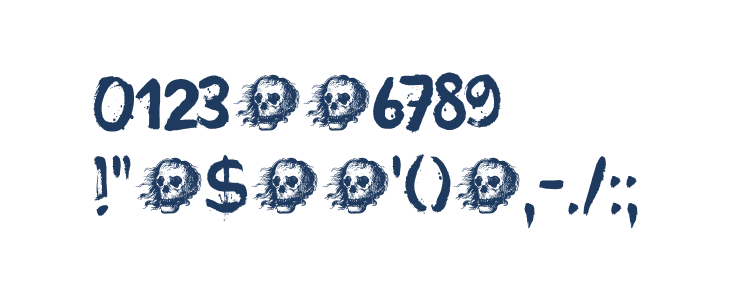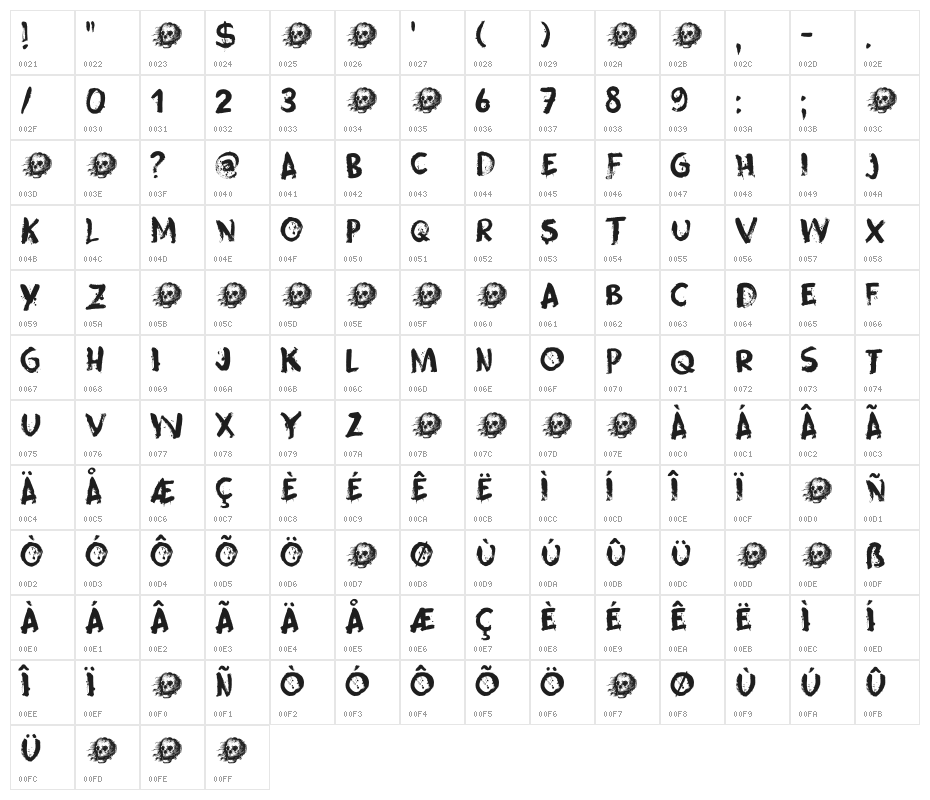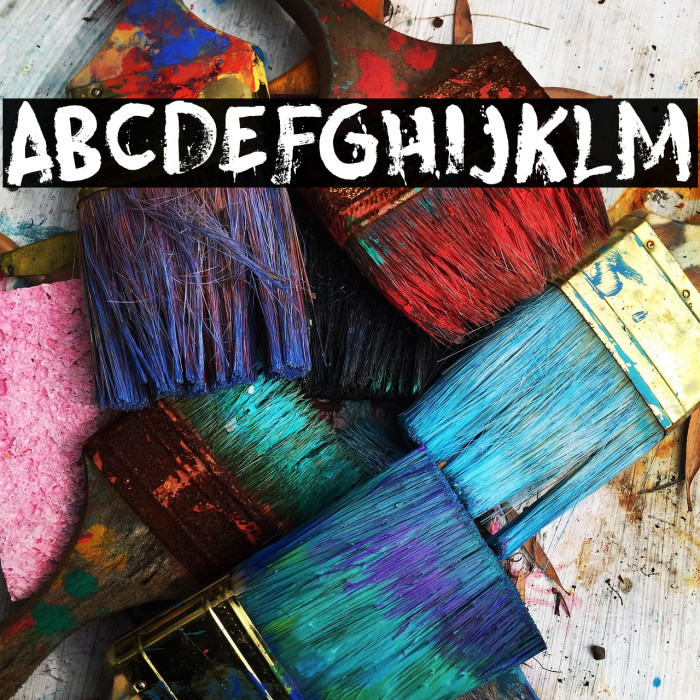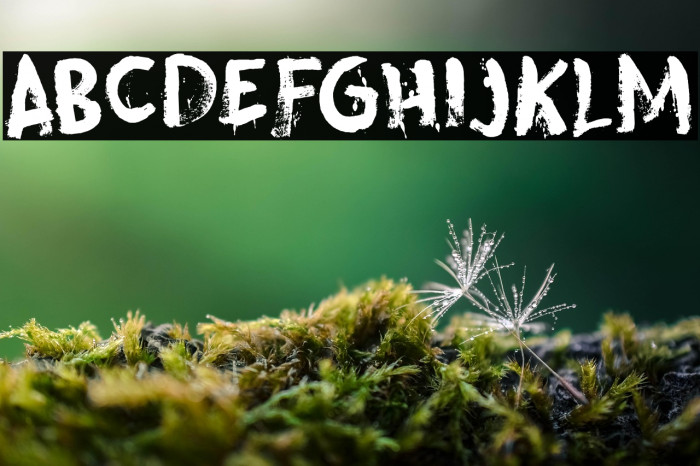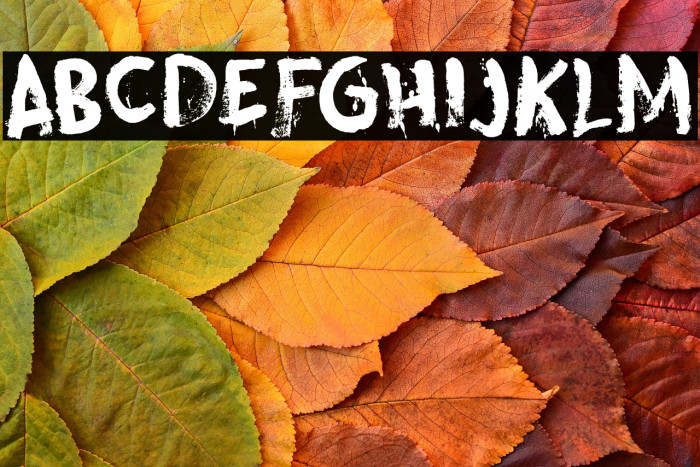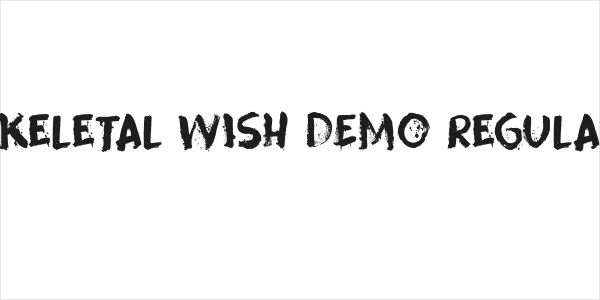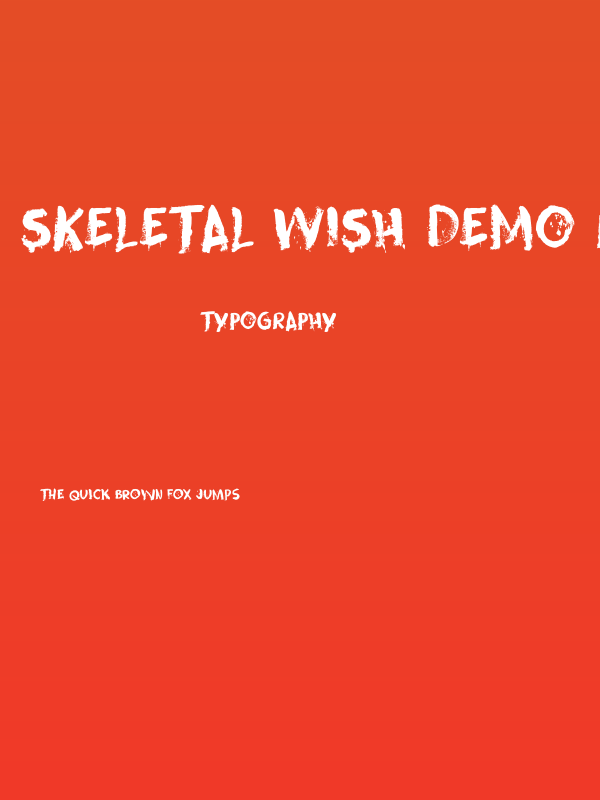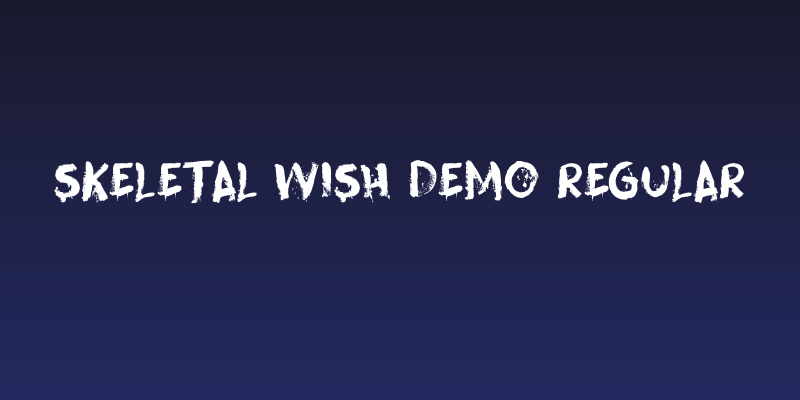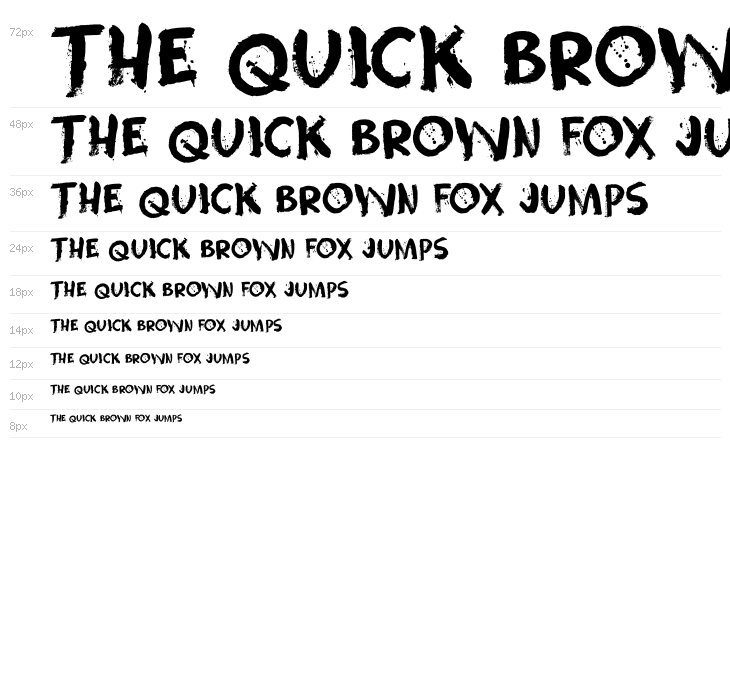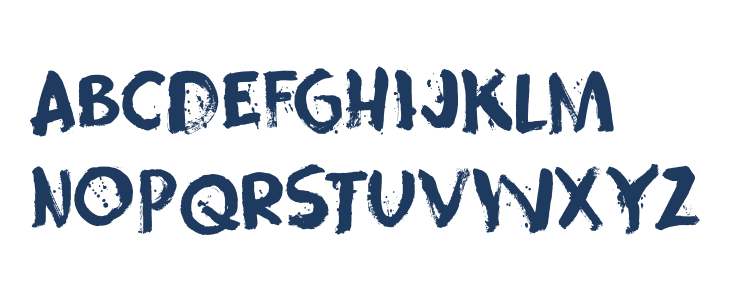
Skeletal Wish DEMO Regular Font
Skeletal Wish DEMO Regular Description
This font features a bold and distressed style, reminiscent of horror or Halloween themes. The characters are designed with a rough, textured appearance, giving them a hand-painted look. The uppercase and lowercase letters maintain a consistent style, with jagged edges and uneven strokes that add to the eerie aesthetic. The numbers and special characters follow the same design, incorporating skull motifs that enhance the spooky vibe. This font is ideal for projects that require a dramatic and eye-catching display, such as posters, event invitations, or themed merchandise.